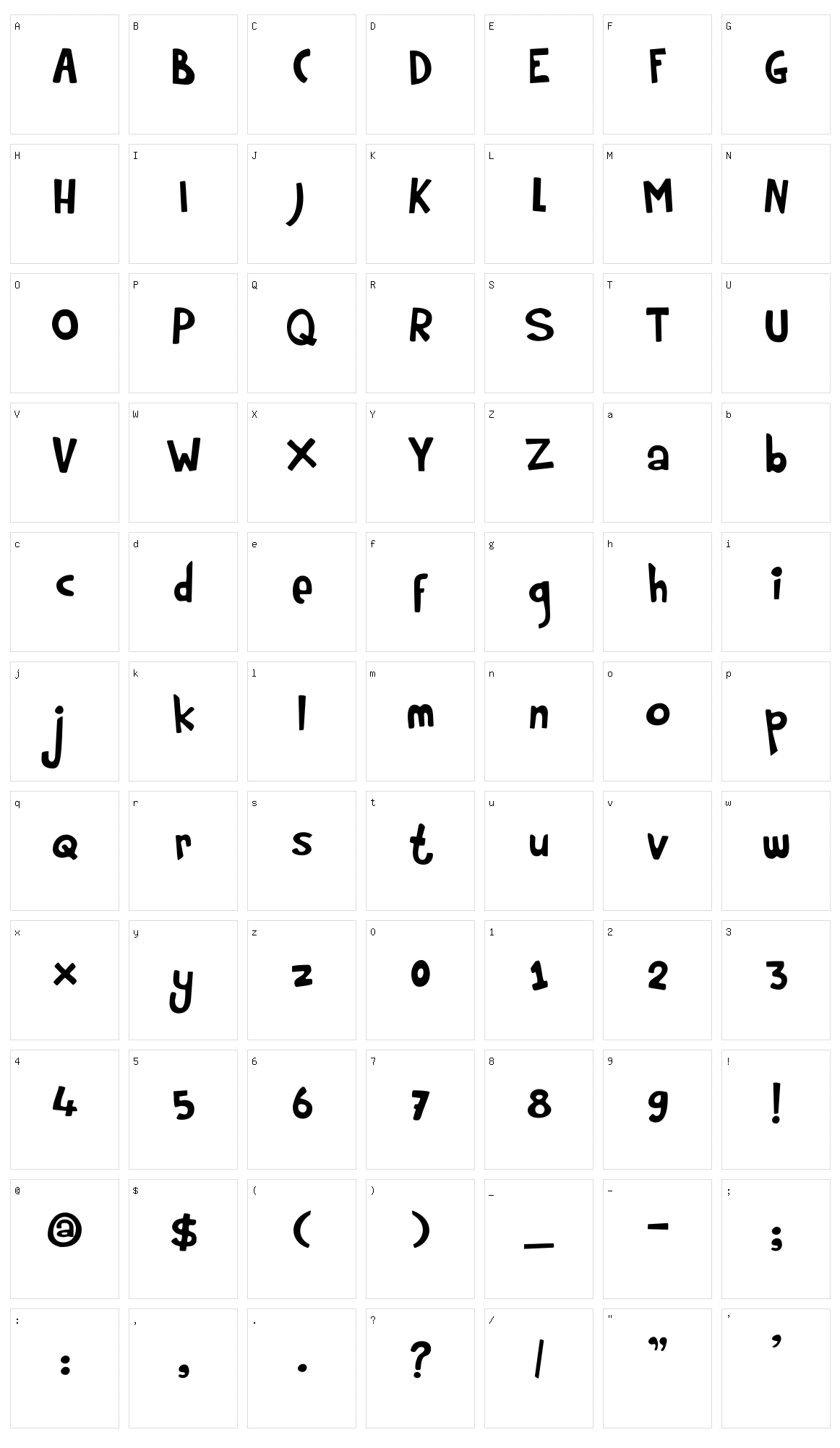
The free font Rumpelstiltskin is carefully designed by Hanoded, showcasing a thoughtful balance of creativity and usability and falls under the Cartoon font style. When you download the ZIP file, it contains only 67.21 KB of font files, making it lightweight and quick to download. Please review the license details below to understand permitted usage and distribution rights. If license information is not available, we recommend using this font for personal projects only or contacting the author directly for commercial usage permissions.